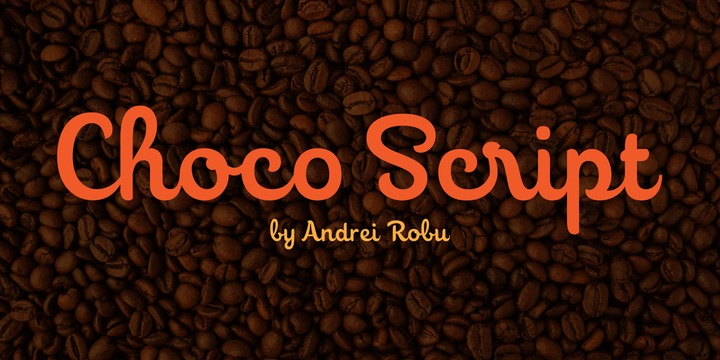
Robu Choco Font
Robu Choco Font is perfect for chocolate brand packaging, bakery logos, candy shop signage, dessert menu designs, food blog headers, confectionery advertising, sweet treat packaging, ice cream parlor branding, children's book titles, and playful food industry marketing. This delightful typeface brings warmth and sweetness to any design project.
Robu Choco Font is exciting because it captures the irresistible appeal of chocolate with its rich, rounded letterforms that evoke the smooth, indulgent texture of premium cocoa. Its playful yet sophisticated design creates an immediate emotional connection that makes viewers crave sweetness and comfort.
The Robu Choco Font family includes Regular, Bold, Light weights with decorative alternates, special chocolate-inspired glyphs, ornamental swashes, and bonus dessert-themed icons that enhance the culinary aesthetic and provide creative flexibility for food-related designs.
Culinary designers love Robu Choco Font for its exceptional ability to enhance brand personality in food and beverage applications. The font's organic curves and generous spacing create a sense of handcrafted quality that resonates with consumers seeking authentic, premium food experiences. Its warm character perfectly complements earth tones and rich color palettes commonly used in confectionery branding.
The design versatility of Robu Choco Font extends beyond traditional chocolate applications, making it suitable for organic food brands, artisanal products, and boutique restaurants seeking to convey comfort and quality. Creative teams appreciate its balance of professionalism and playfulness, which works effectively across both luxury and accessible market segments.
Whether used for artisanal chocolate packaging, bakery websites, or dessert cookbook covers, Robu Choco Font delivers the perfect blend of sophistication and sweetness. Its universal appeal and food-focused aesthetic make it an essential tool for designers creating memorable culinary brand experiences that engage consumers' emotions and appetites.